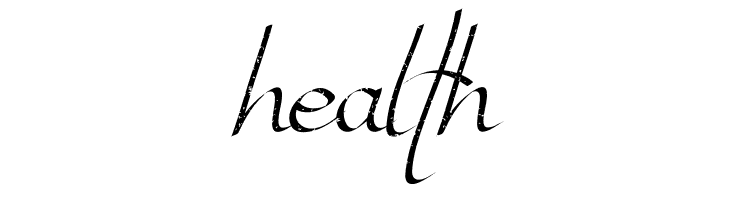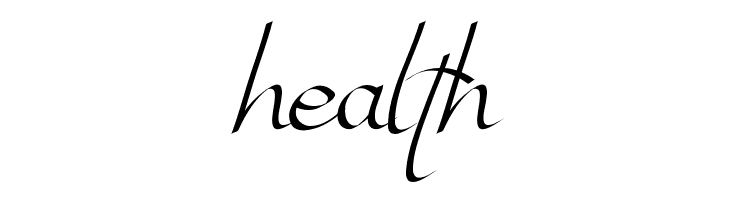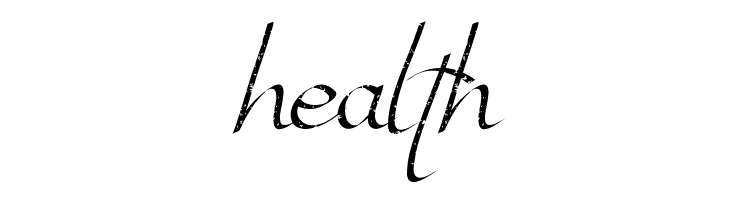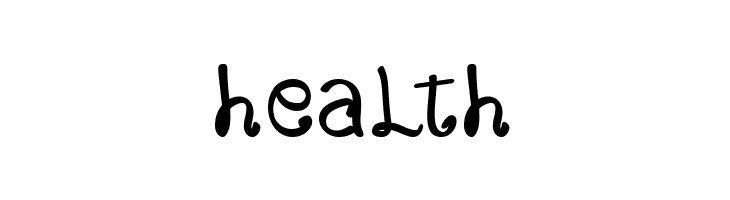
A playful handwritten font with rounded, consistent strokes and a casual style.
A geometric and artistic font with intricate patterns and bold lines.
A sleek, ultra-light font with tall, narrow letterforms and a modern aesthetic.
A fluid, cursive handwritten font with an elegant and personal style.
A fluid and elegant script font with sweeping curves and graceful lines.
A modern, elegant script font with high contrast and flowing lines.
A modern, geometric sans-serif font with a clean and minimalist design.
A vintage-inspired script font with elegant, flowing characters and a distressed texture.
A modern, geometric sans-serif font with a sleek and minimalist design.
A vintage script font with elegant, flowing characters and a distressed texture.